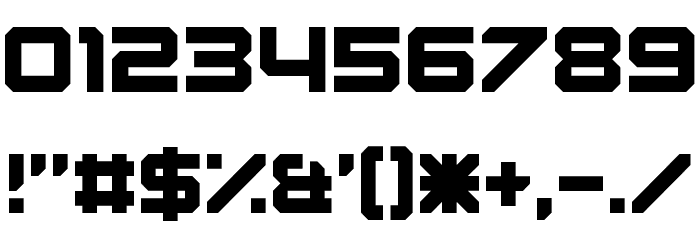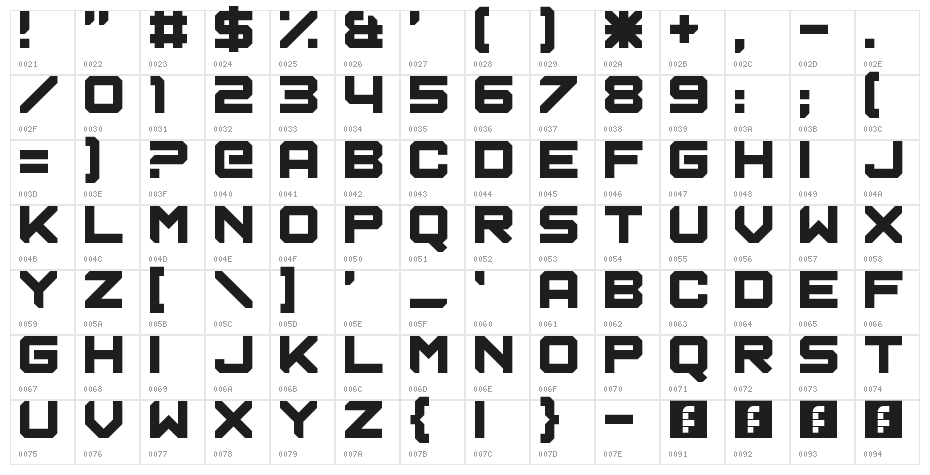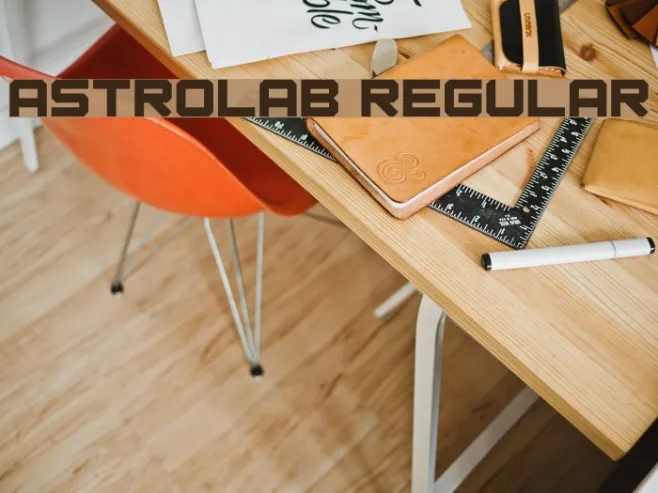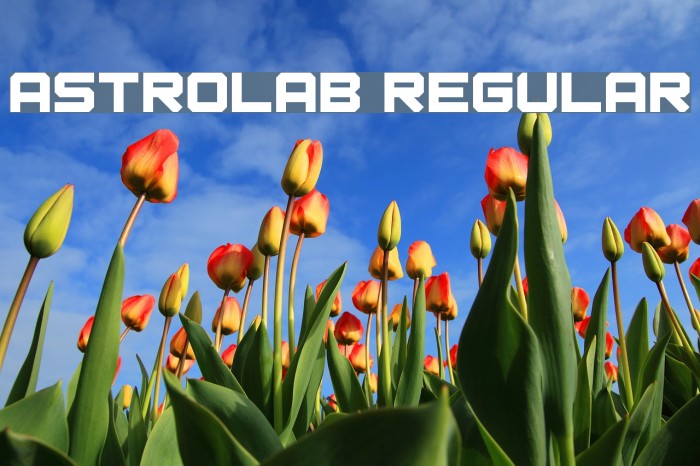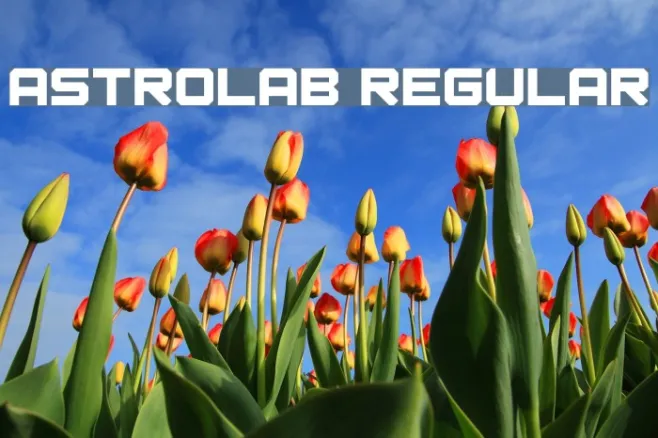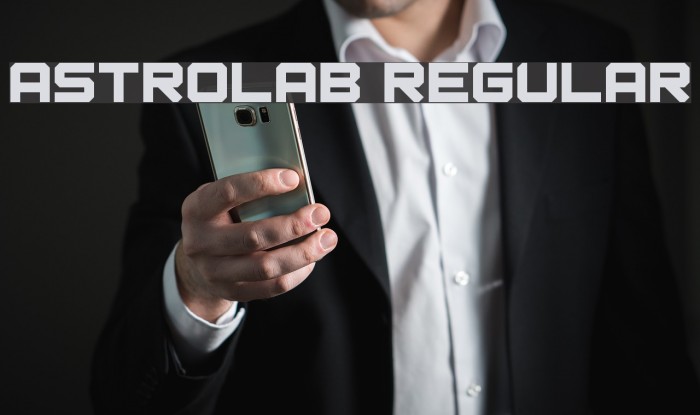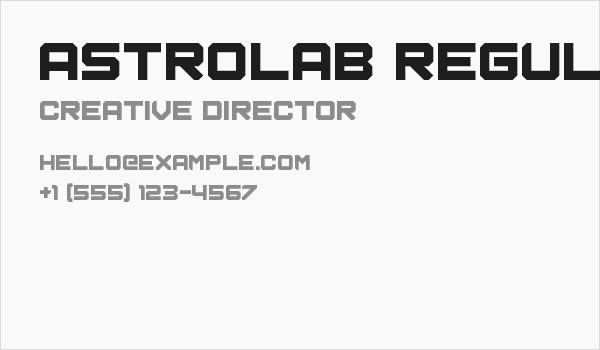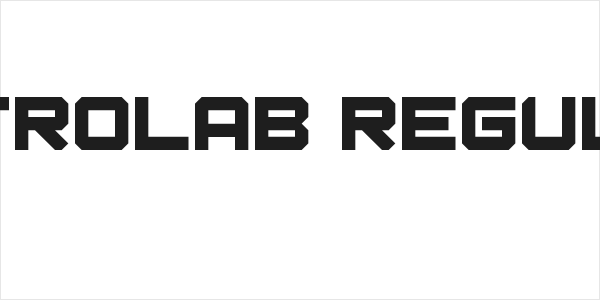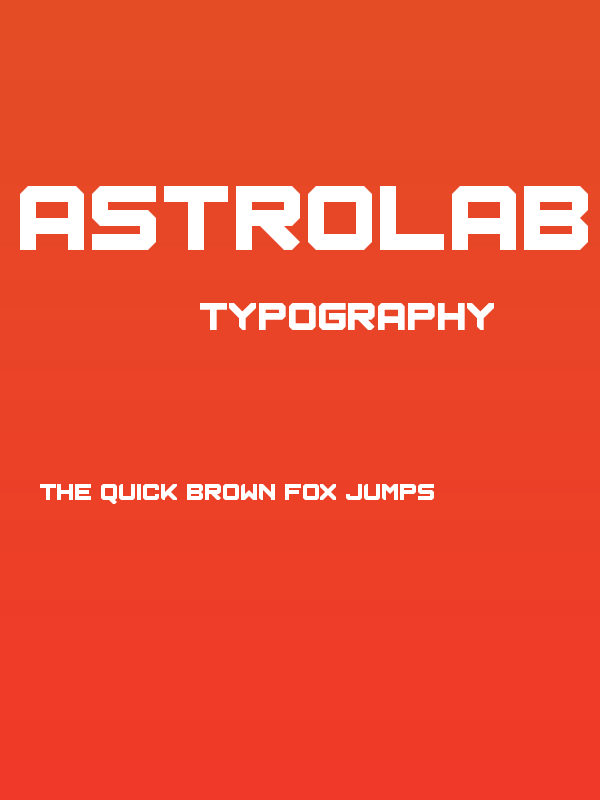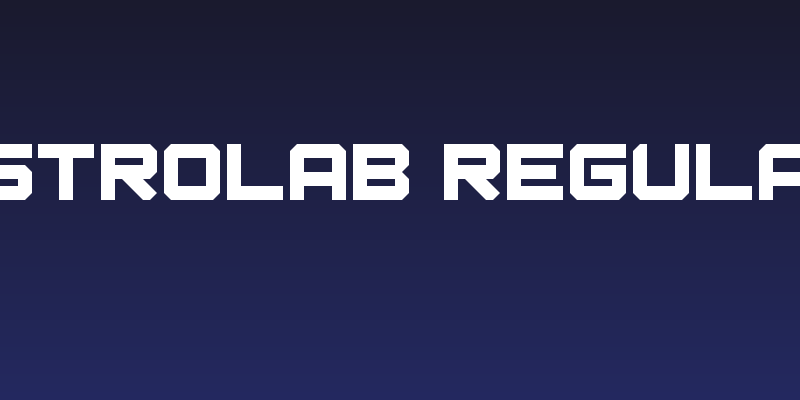
Astrolab Regular Font
Astrolab Regular Description
This font features a bold, geometric design with a futuristic aesthetic. The characters are constructed with sharp angles and clean lines, giving it a modern and tech-inspired look. The uppercase and lowercase letters maintain a consistent style, with a uniform height and width that enhances readability. The numbers and special characters follow the same design principles, ensuring a cohesive appearance across all elements. The font's strong presence makes it suitable for attention-grabbing headlines and logos.
Proposed ProjectsIdeal for technology branding, sci-fi themed projects, video game titles, and modern advertising campaigns.